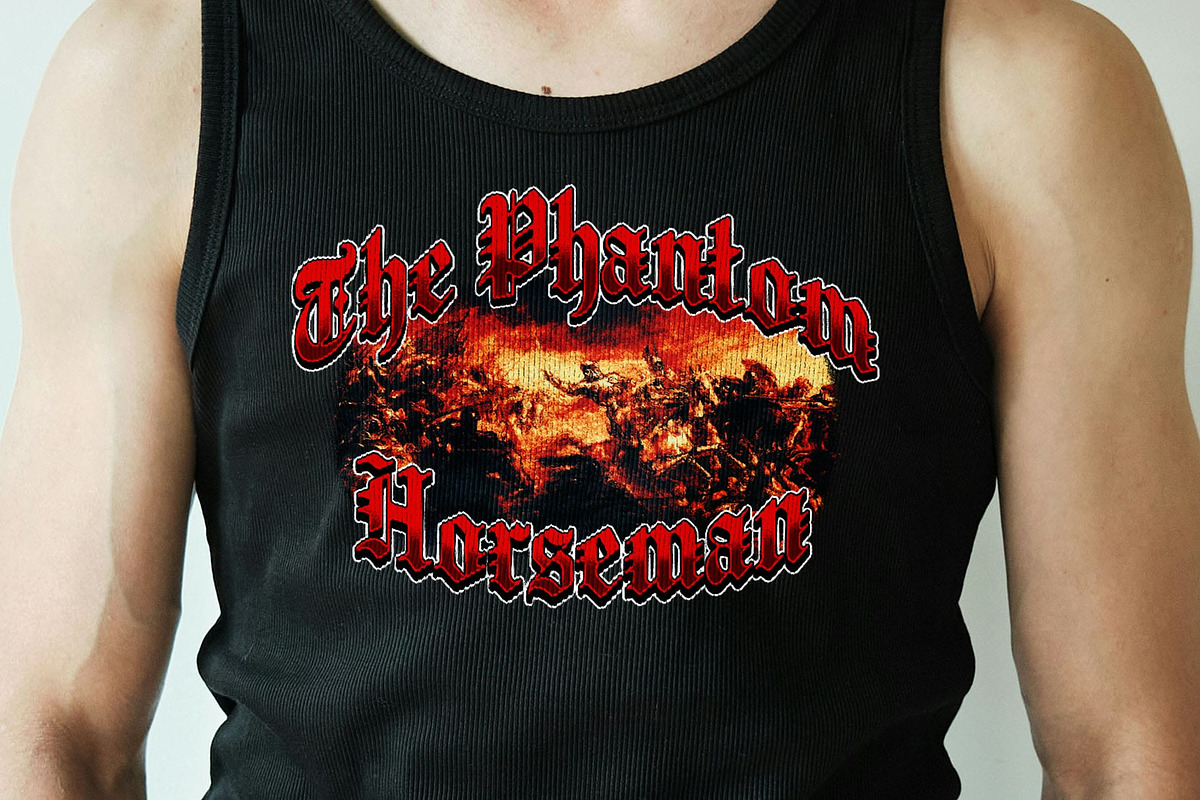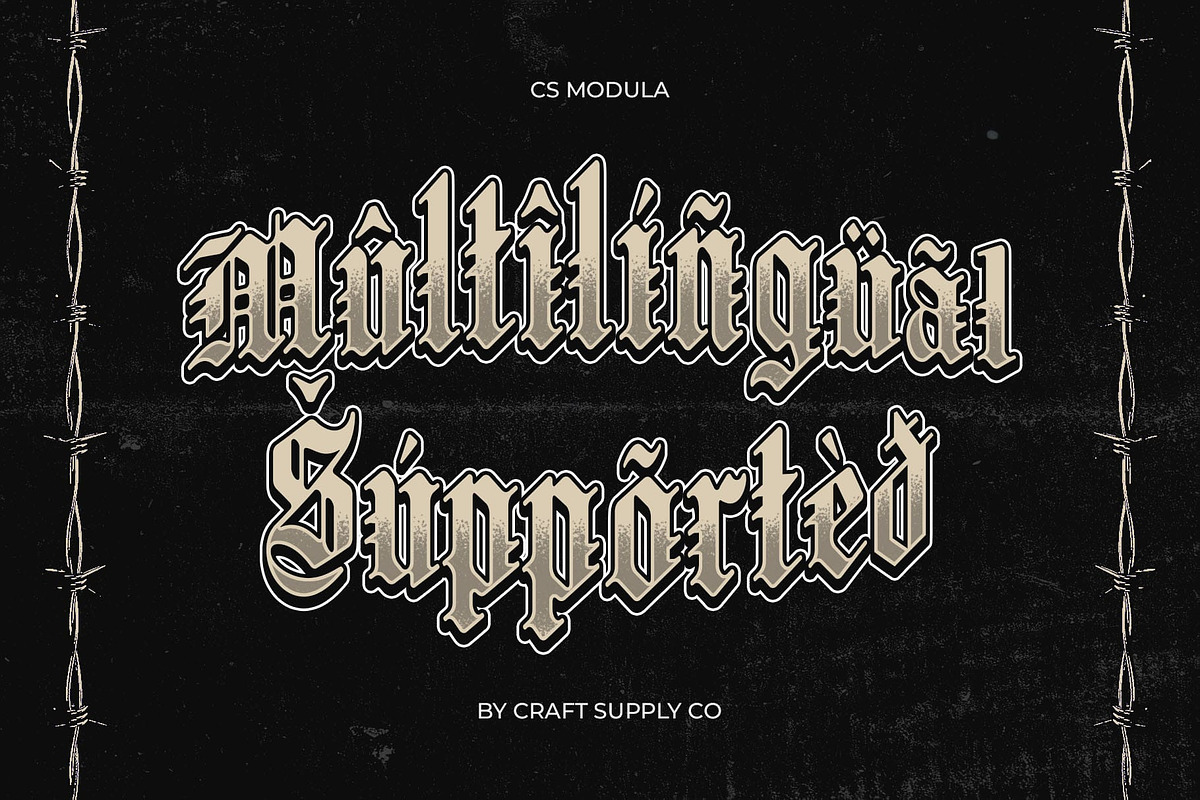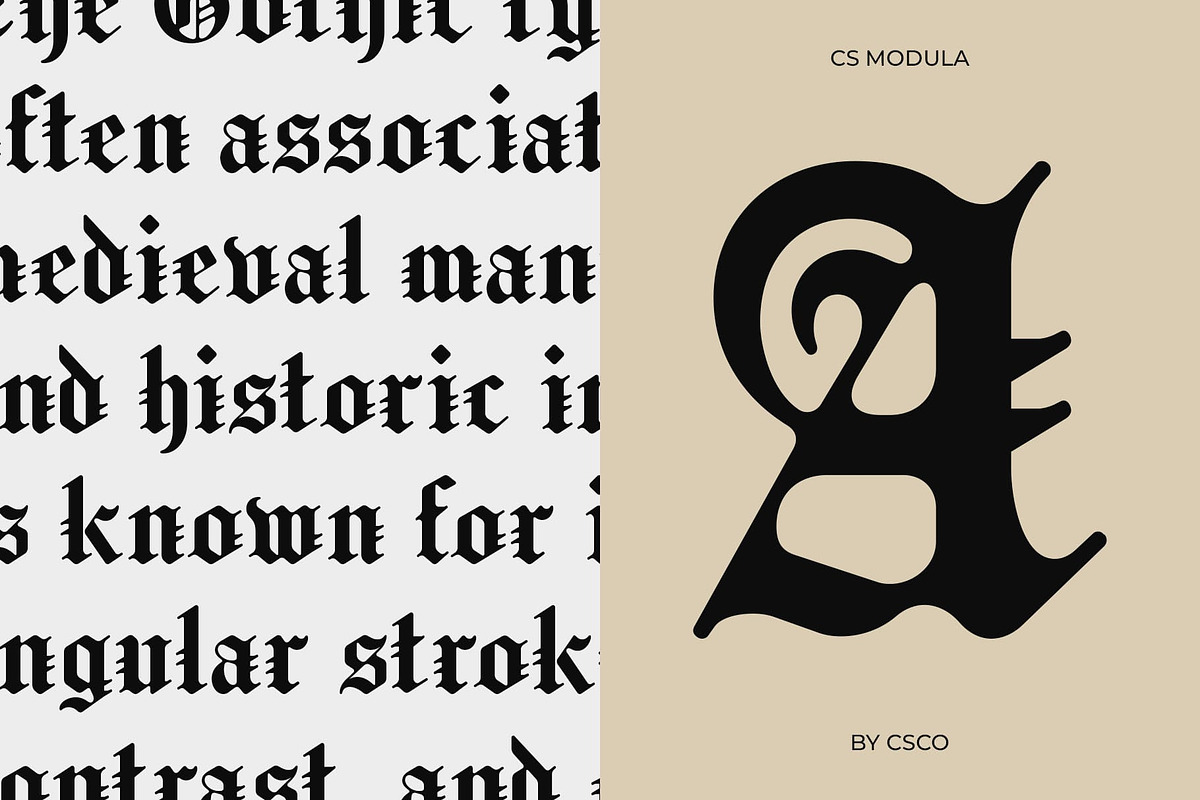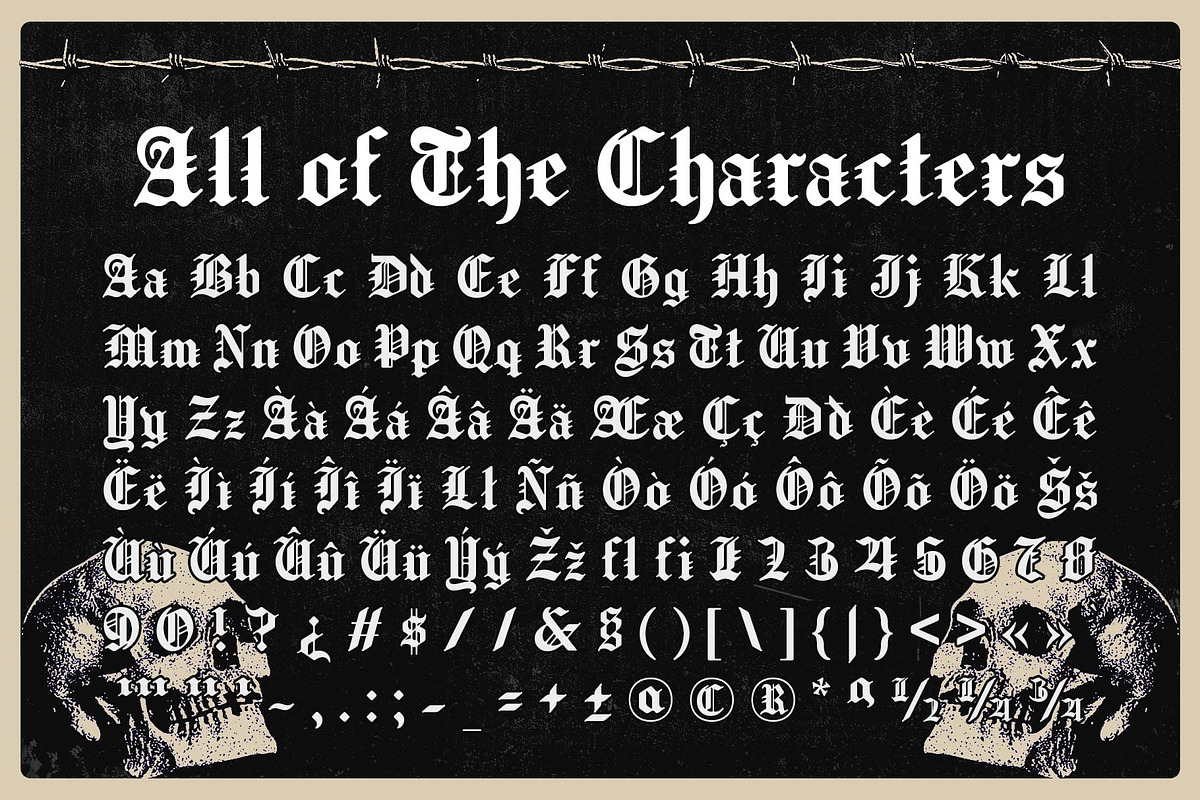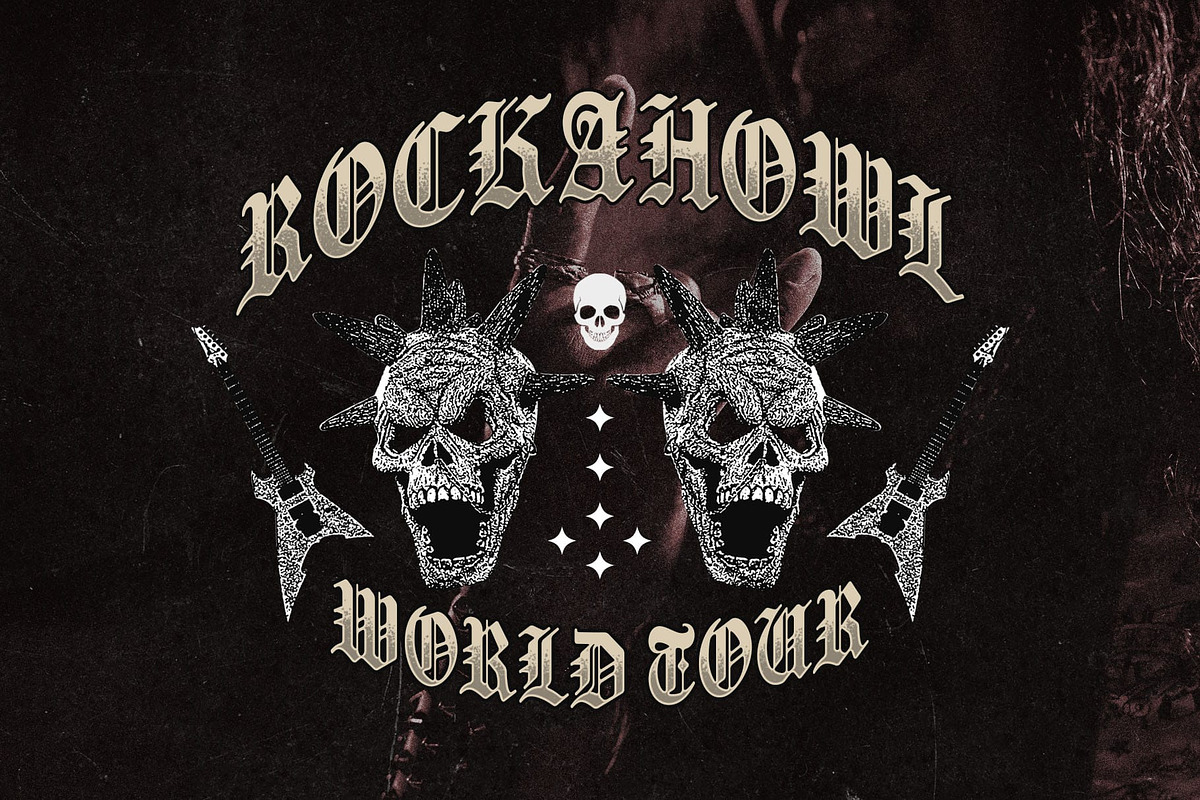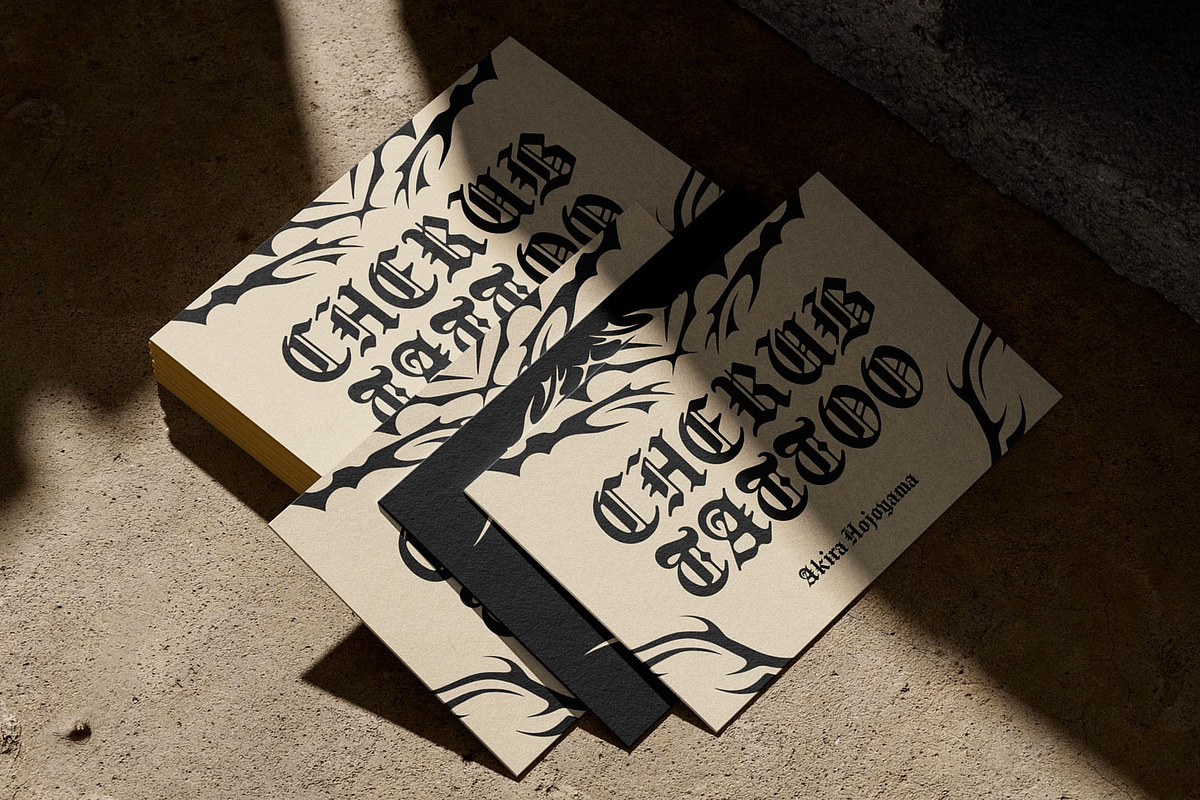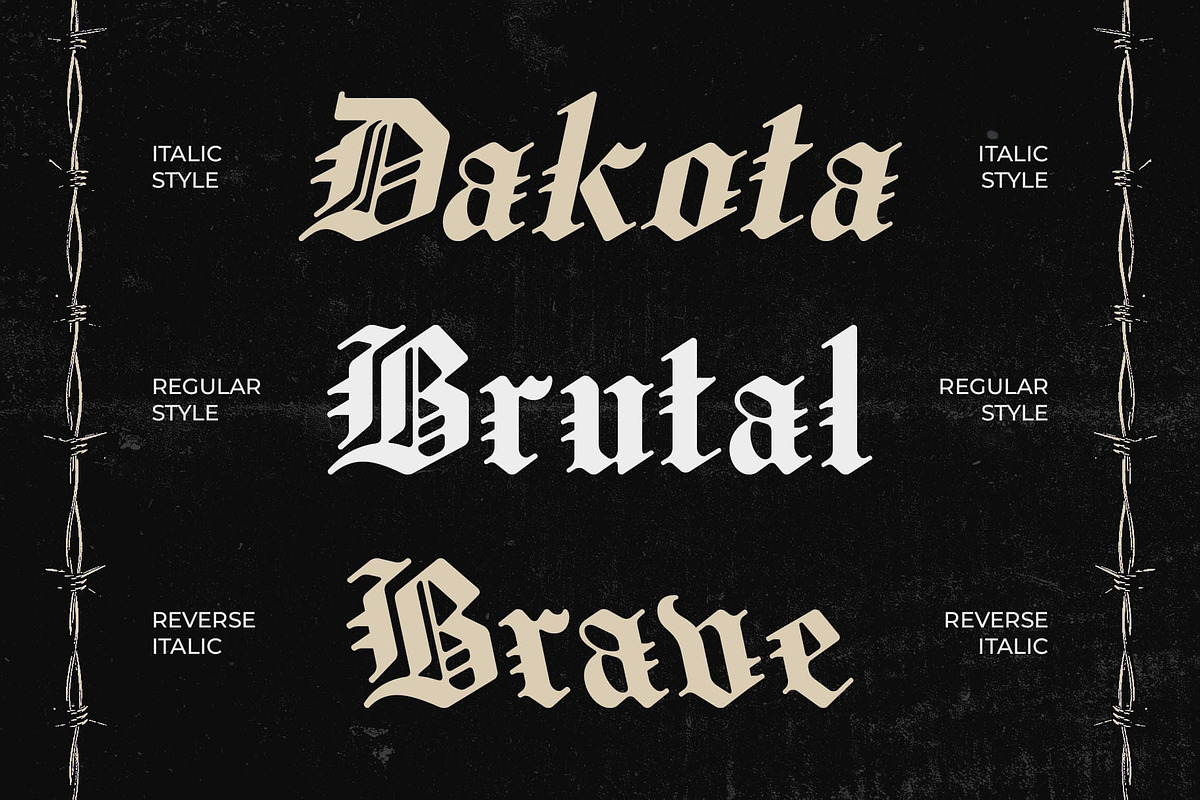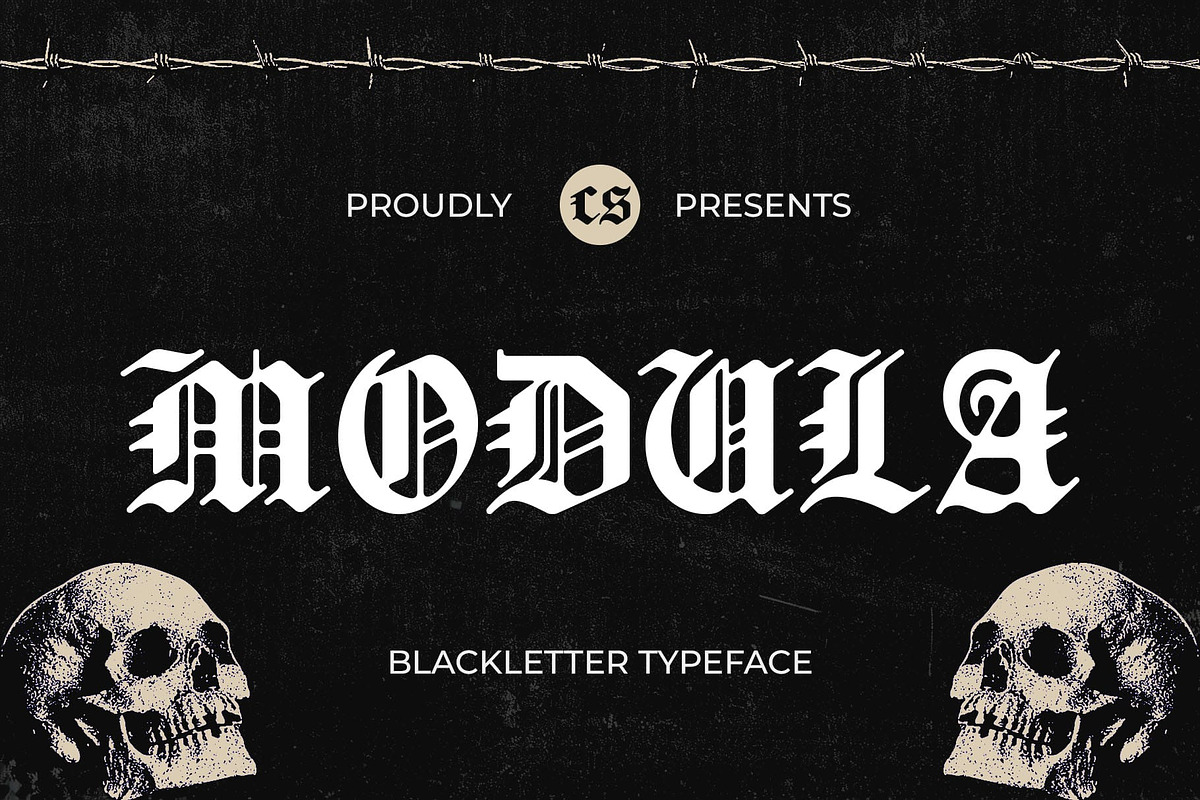
CS Modula – Old English Font
CS Modula – Old English Font: A Timeless Tribute to Gothic Elegance
Classic Old English Display Font CS Modula – Old English Display Font is a bold and decorative typeface inspired by traditional blackletter calligraphy. With its sharp, angular strokes and intricate gothic details, it embodies the essence of medieval typography while maintaining a refined and polished appearance. Designed for those who appreciate the beauty of historical lettering, this font brings a touch of authenticity to any design.
Regal and Historical Aesthetic Steeped in tradition, CS Modula captures the grandeur of historical manuscripts, ancient scrolls, and classic newspaper headlines. Its distinguished letterforms exude a sense of heritage, power, and prestige, making it an excellent choice for projects that require a connection to the past. Whether used for official documents, certificates, or event branding, this font enhances the sense of tradition and sophistication.
Bold Letterforms with Intricate Details The font’s bold strokes and decorative flourishes enhance its gothic charm, offering a striking balance between strength and elegance. Each letter is meticulously crafted to preserve the authenticity of Old English script while ensuring readability and versatility in modern applications. The dramatic curves, pointed serifs, and intricate swashes contribute to its distinct personality, making it ideal for both display and decorative text.
- CS Modula Regular
- CS Modula Italic
- CS Modula Reverse Italic